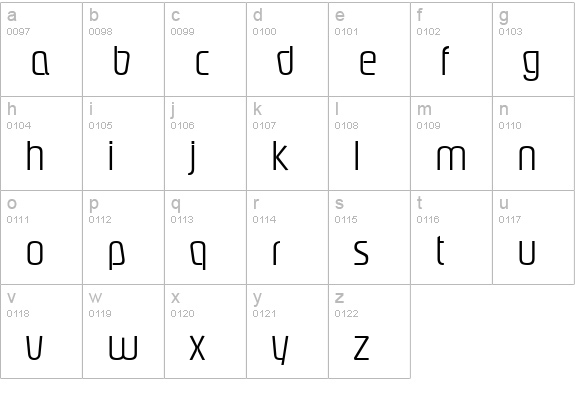
PloverLight Regular Font Details
PloverLight Regular is the standard, neutral variant in the PloverLight typeface family \xE2\x80\x94 well suited to general body text, paragraphs, and standard typographic work.
PloverLight Regular is a stunning and elegant font that brings a touch of sophistication to any design project. With its clean lines and modern appeal, this font is perfect for a wide range of applications, from branding and editorial design to web design and advertising. The sleek and minimalistic design of PloverLight Regular makes it incredibly versatile and easy to read, making it an ideal choice for both large blocks of text and display purposes. Its balanced proportions and subtle details give it a unique personality that sets it apart from other fonts. What's even better is that PloverLight Regular is available for free download at FontsMarket.com. This means you can easily access and use this beautiful font in your projects without any cost involved. Don't miss out on the opportunity to add PloverLight Regular to your font collection today!